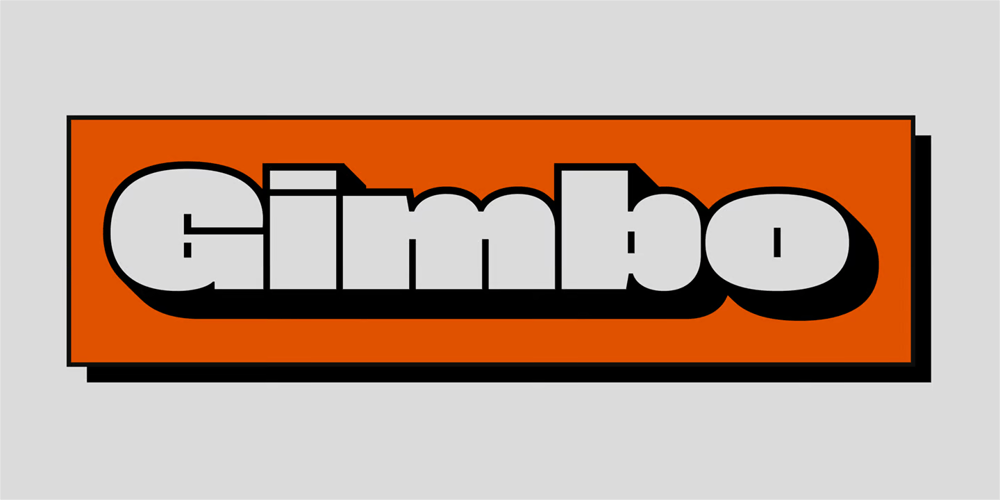
Gimbo Font Family was designed by Deni Anggara and published by Halbfett. Gimbo contains 3 styles and family package options. Gimbo is bold. This heavy sans-serif design features thin counters. The interior spaces inside letterforms have been reduced as much as possible. Often, they seem abstract. There are three fonts in the Gimbo family: Black, Ultra, and Ultra Shadow. What do those terms mean? Well, Ultra is wider than Black. It takes up more pixels on-screen or brings more ink to the page.